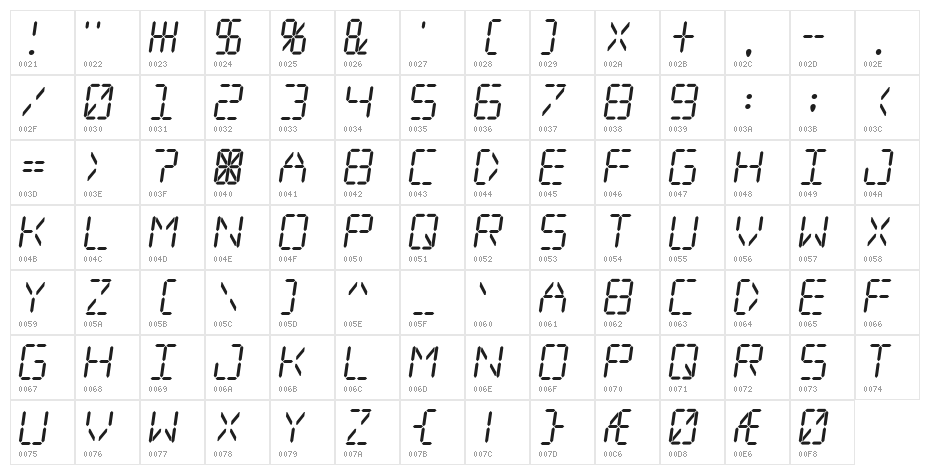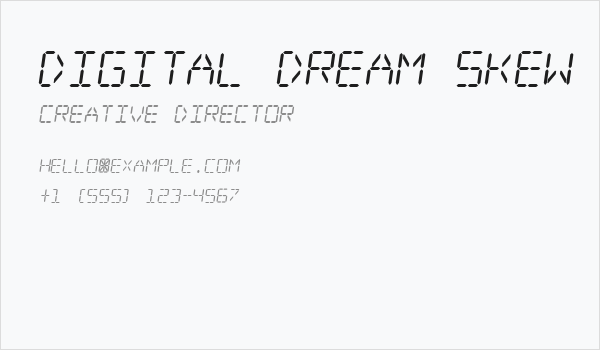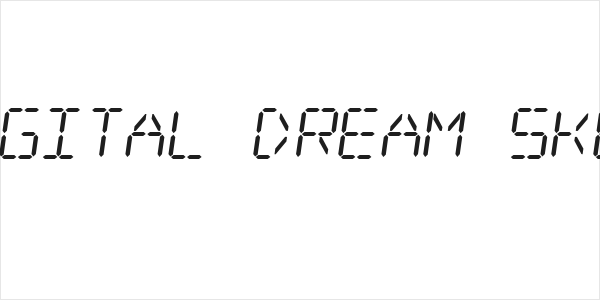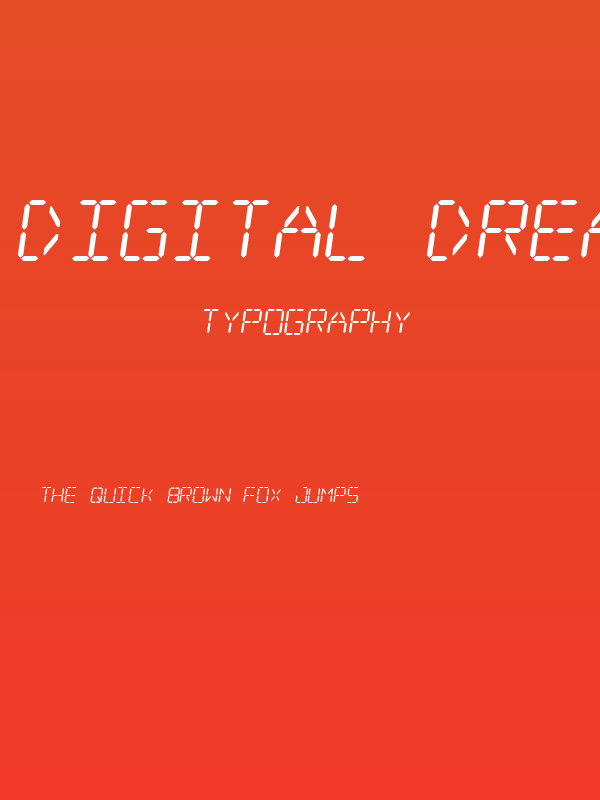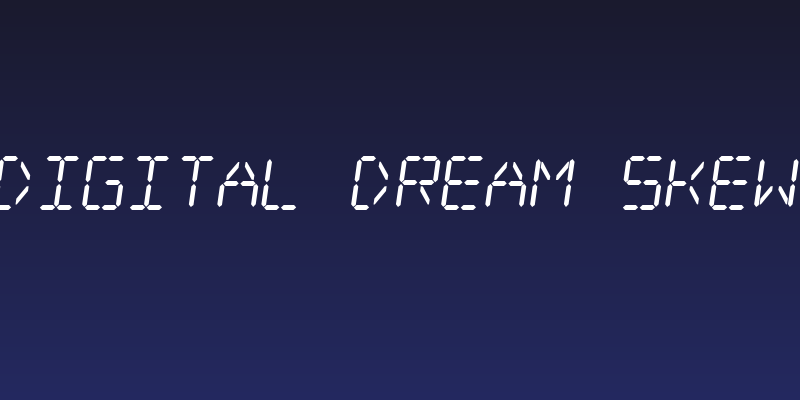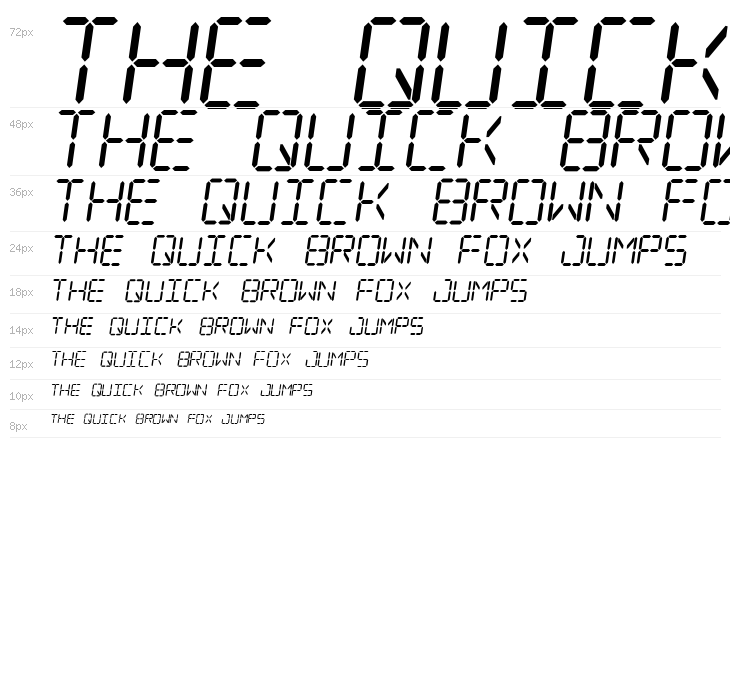
Digital dream Skew Font
Digital dream Skew Description
This font features a futuristic, digital appearance reminiscent of LED displays and digital clocks. Each character is composed of segmented lines, creating a geometric and technical aesthetic. The uppercase and lowercase letters maintain a consistent style, with sharp angles and a uniform height. The numerals and special characters follow the same segmented design, ensuring a cohesive look across all glyphs. The font's distinct style makes it ideal for projects that require a modern, tech-savvy feel. Its unique structure captures attention, making it suitable for digital interfaces, technology branding, and sci-fi themed designs.
| Proposed Projects | Ideal for digital interfaces, technology branding, sci-fi themed designs, and modern advertising. |